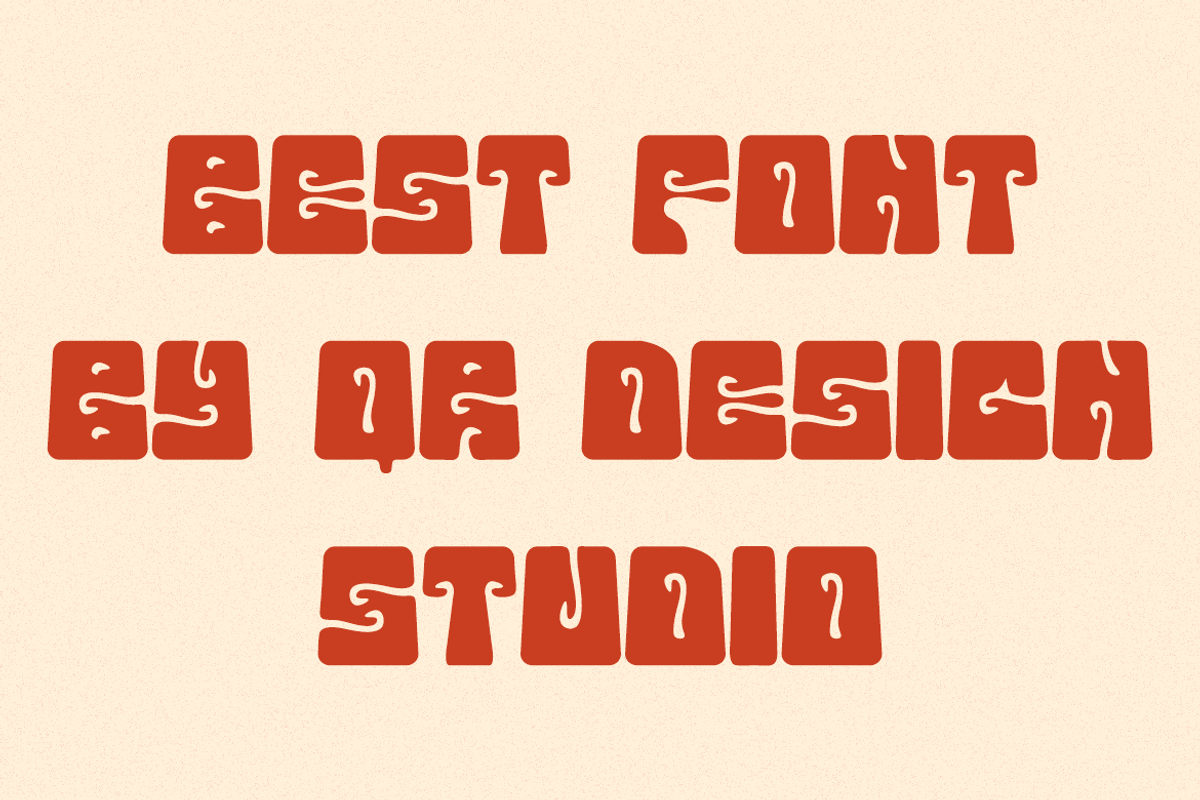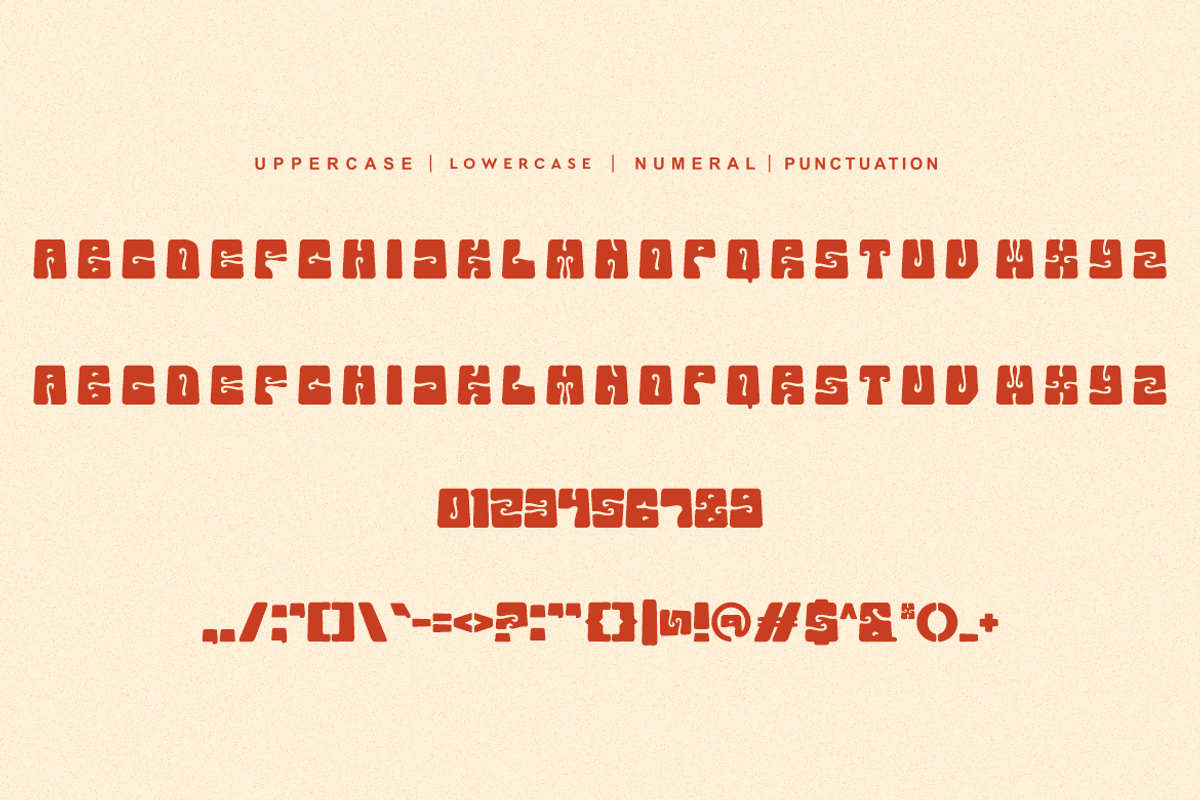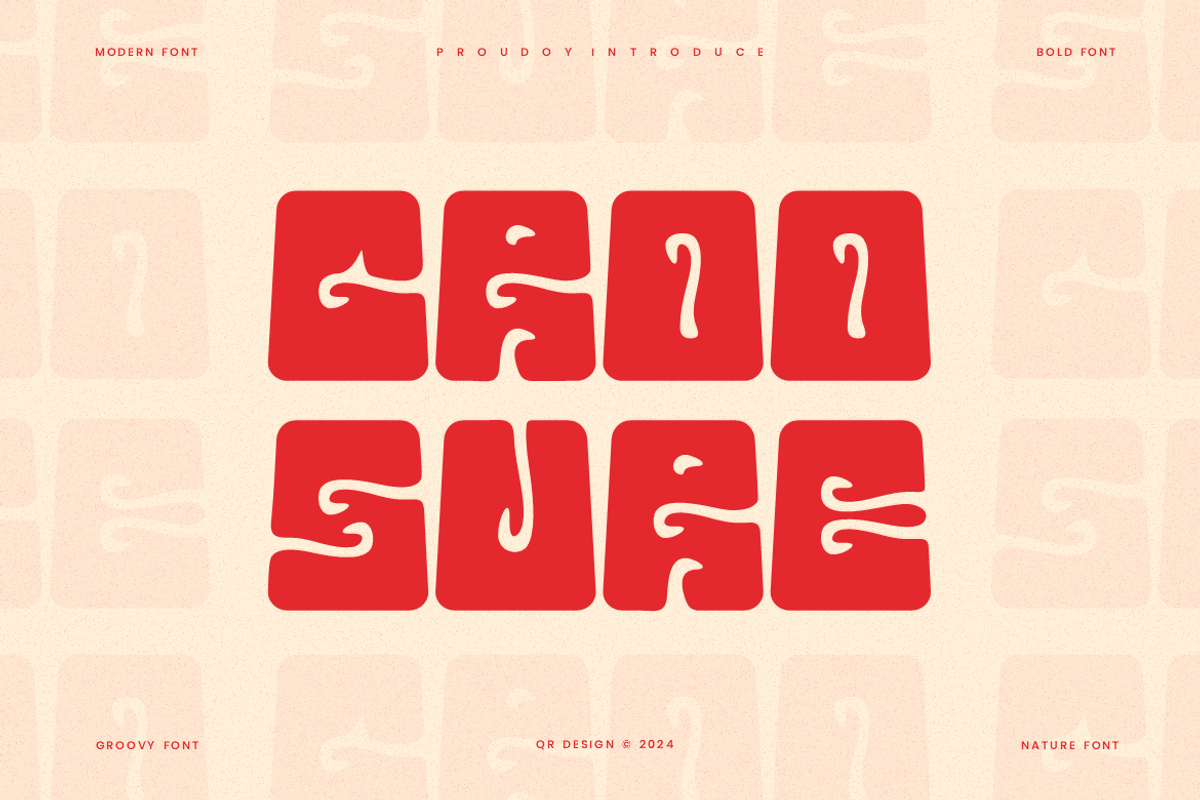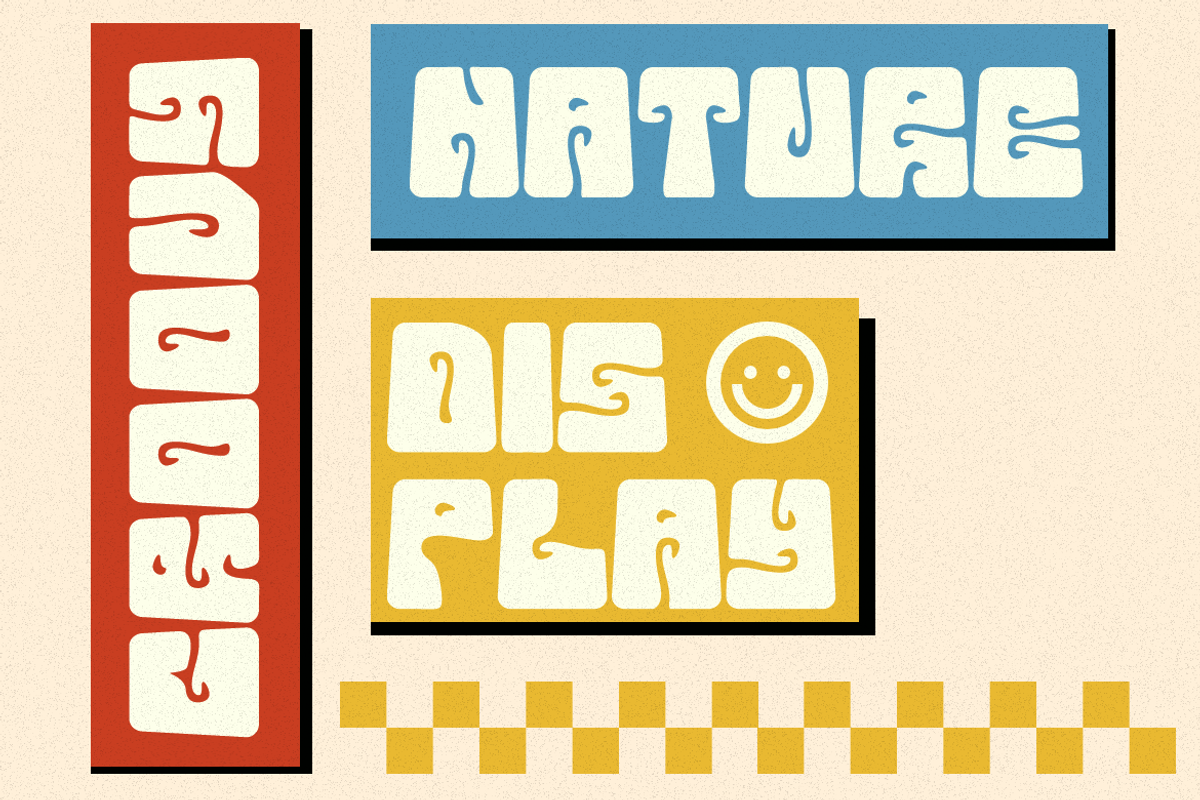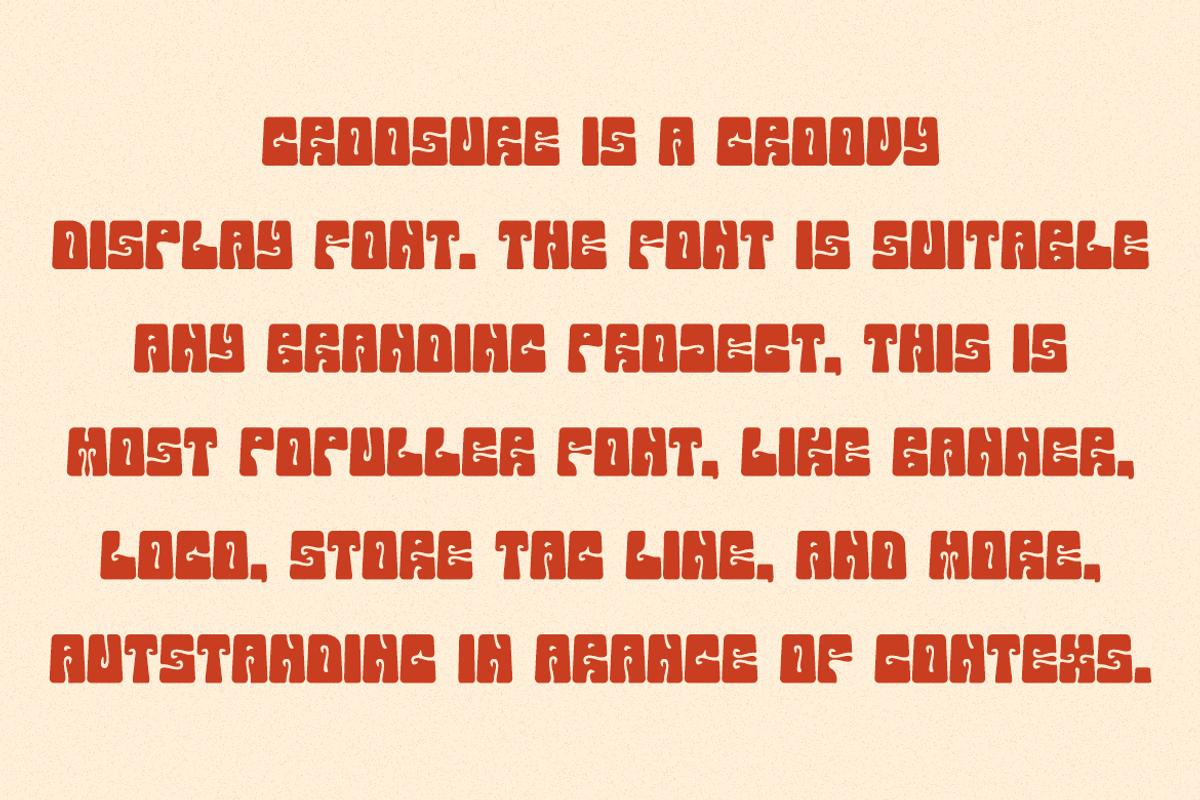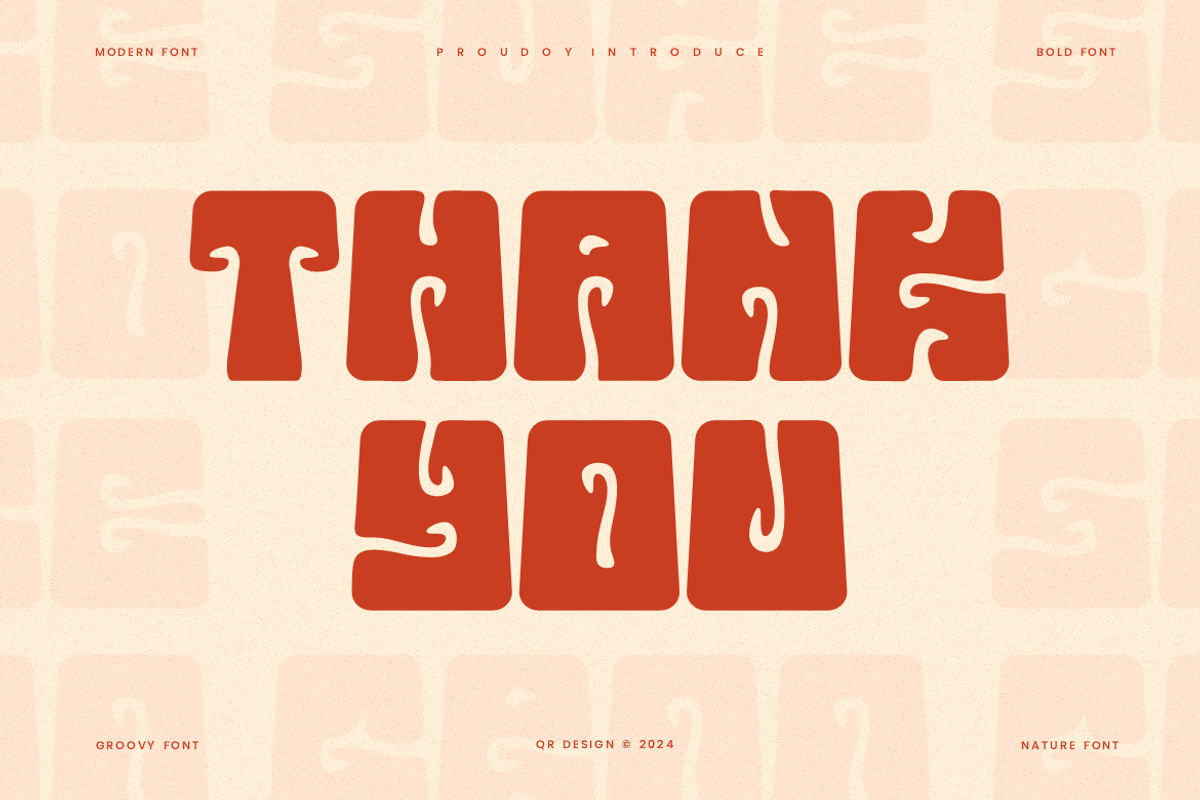
Groosure - Groovy & Nature Font
Groosure - Groovy Font is a bold and authentic display font. The font is suitable for any branding project like poster, logo, sport, and many more. Outstanding in a wide range of contexts.